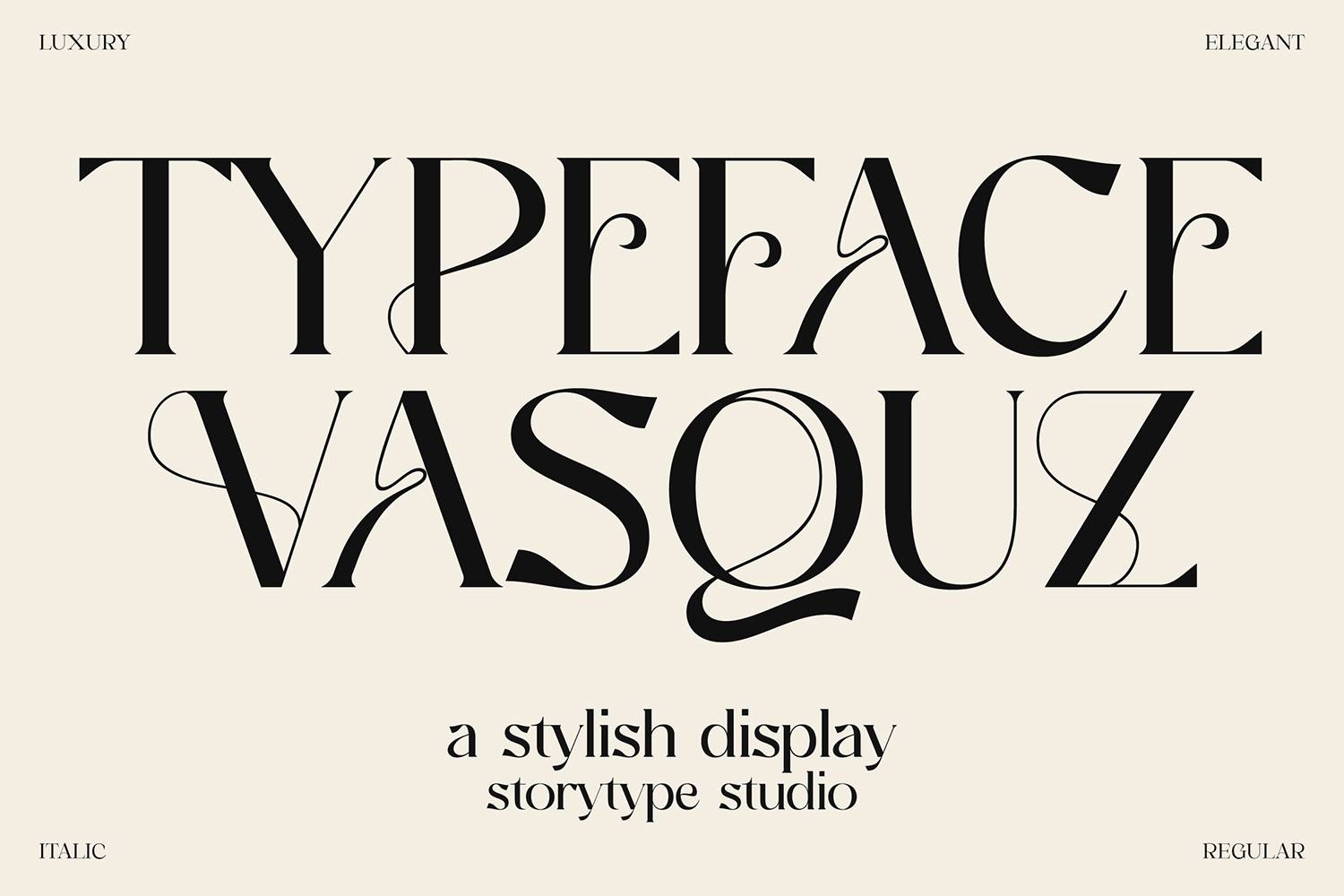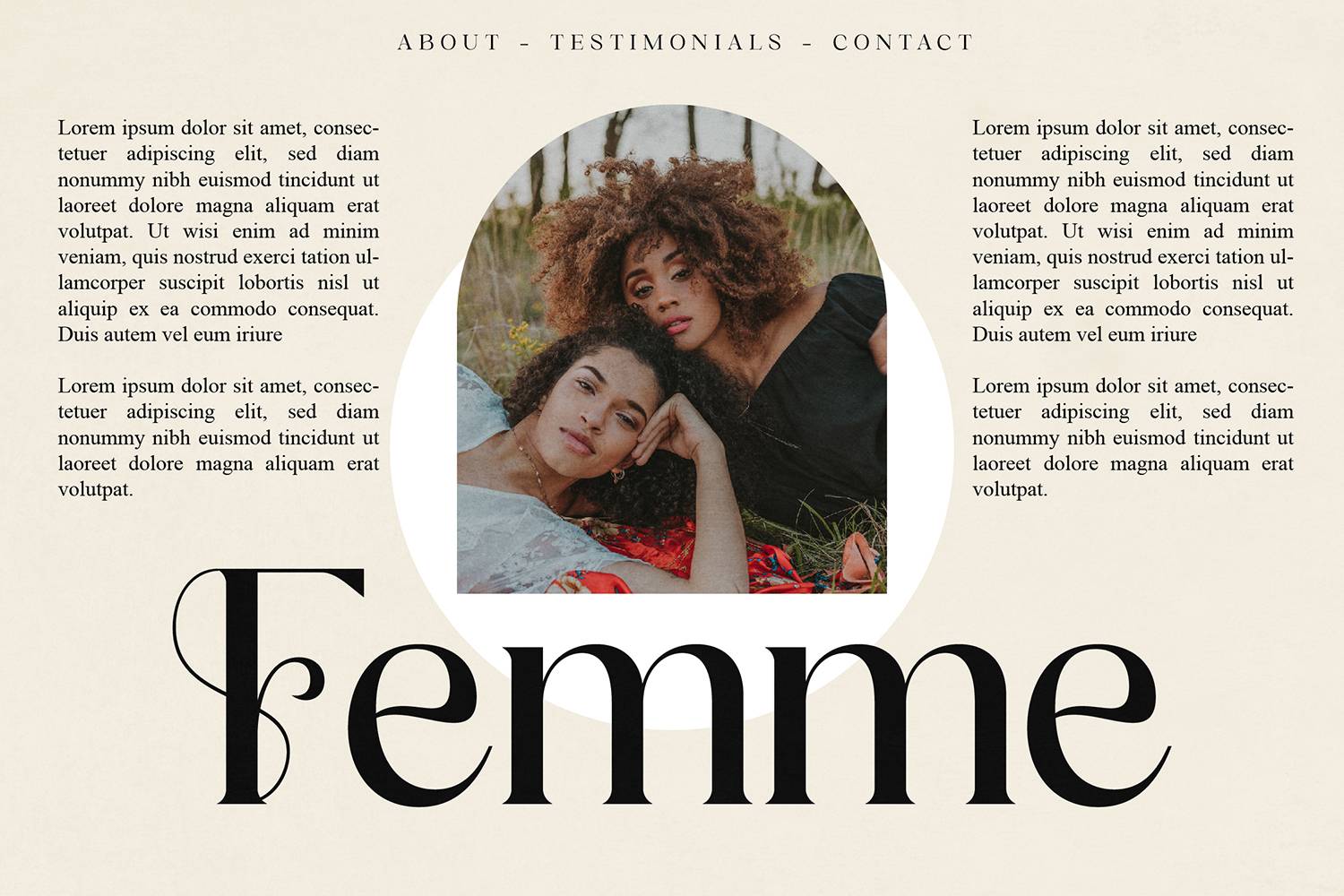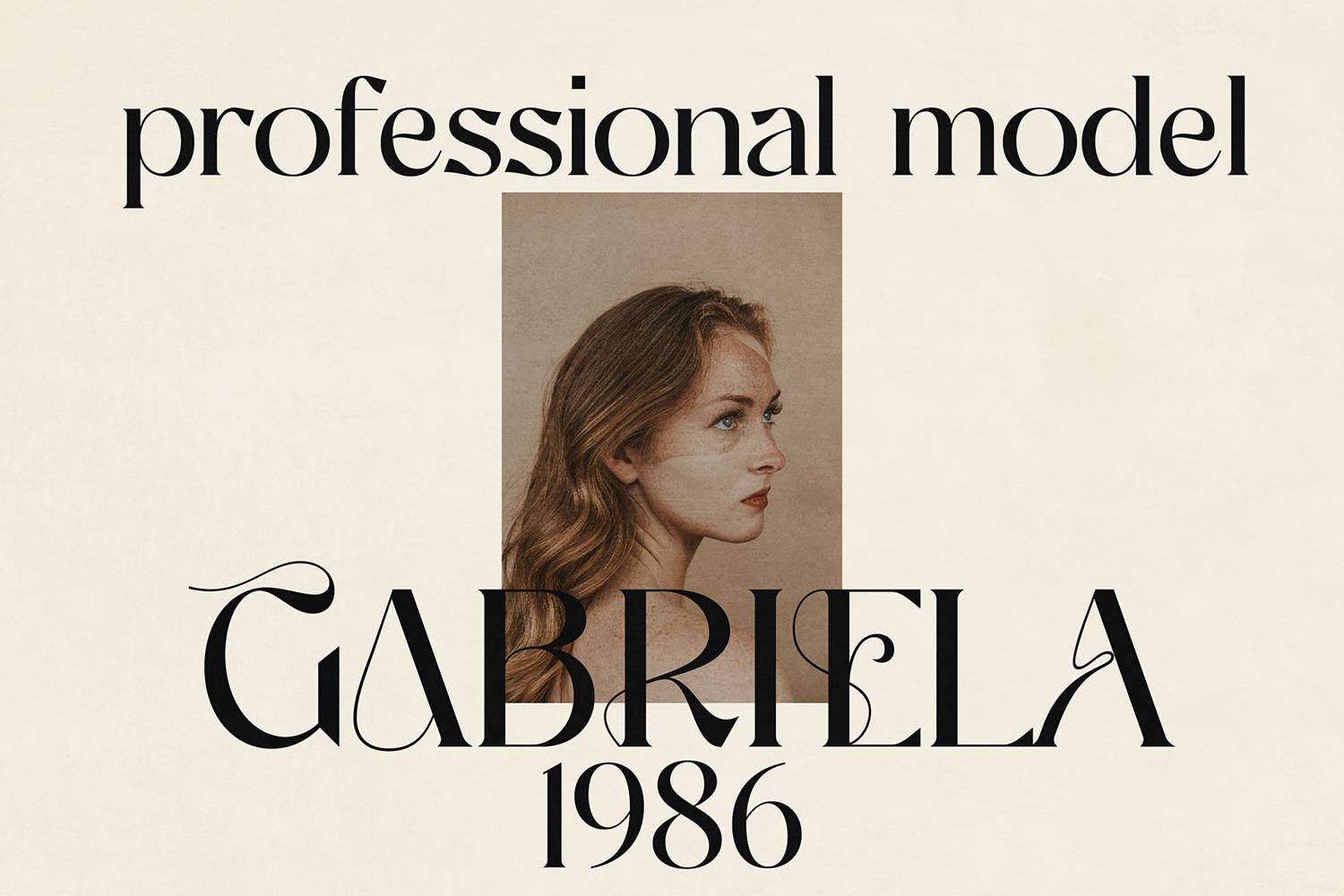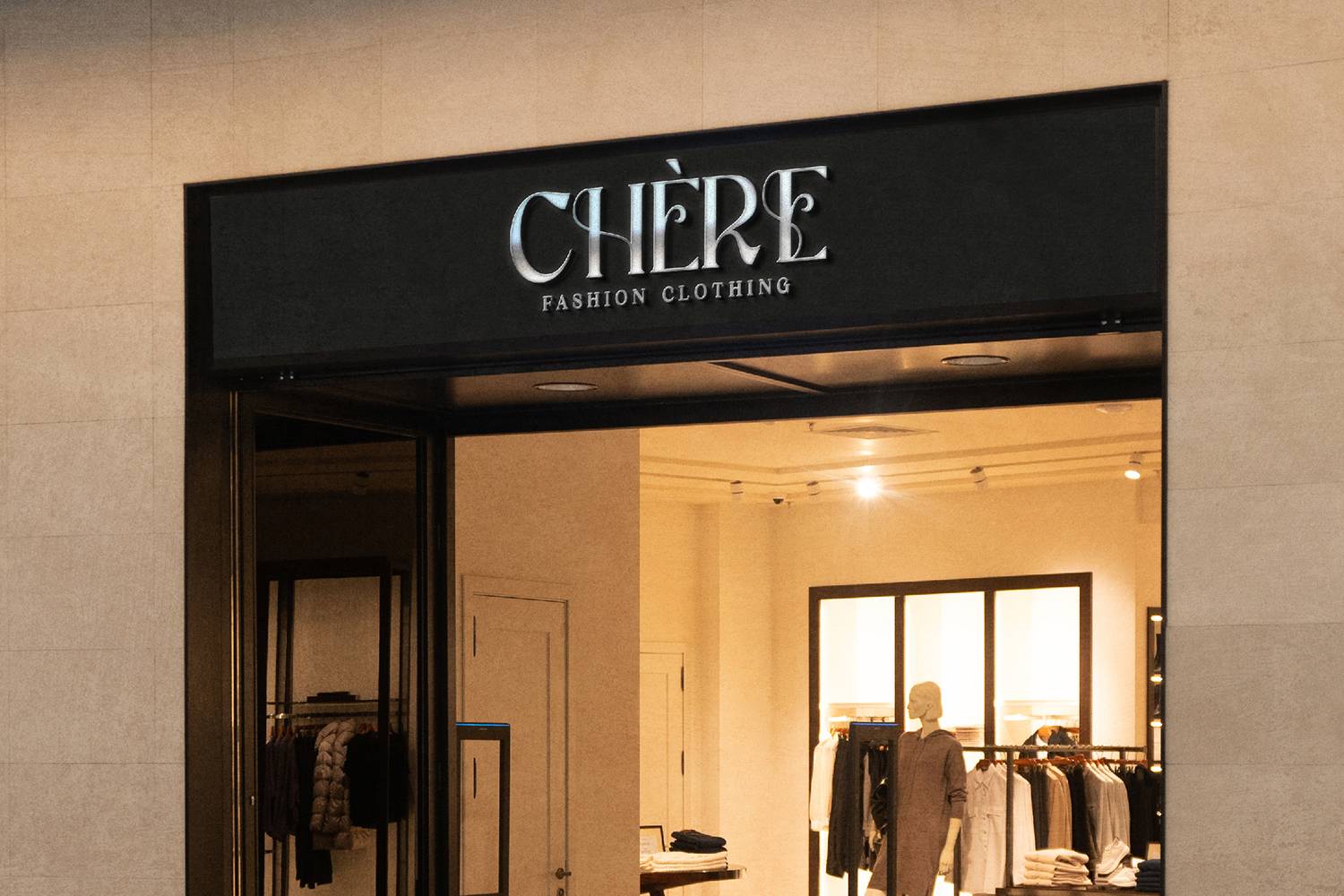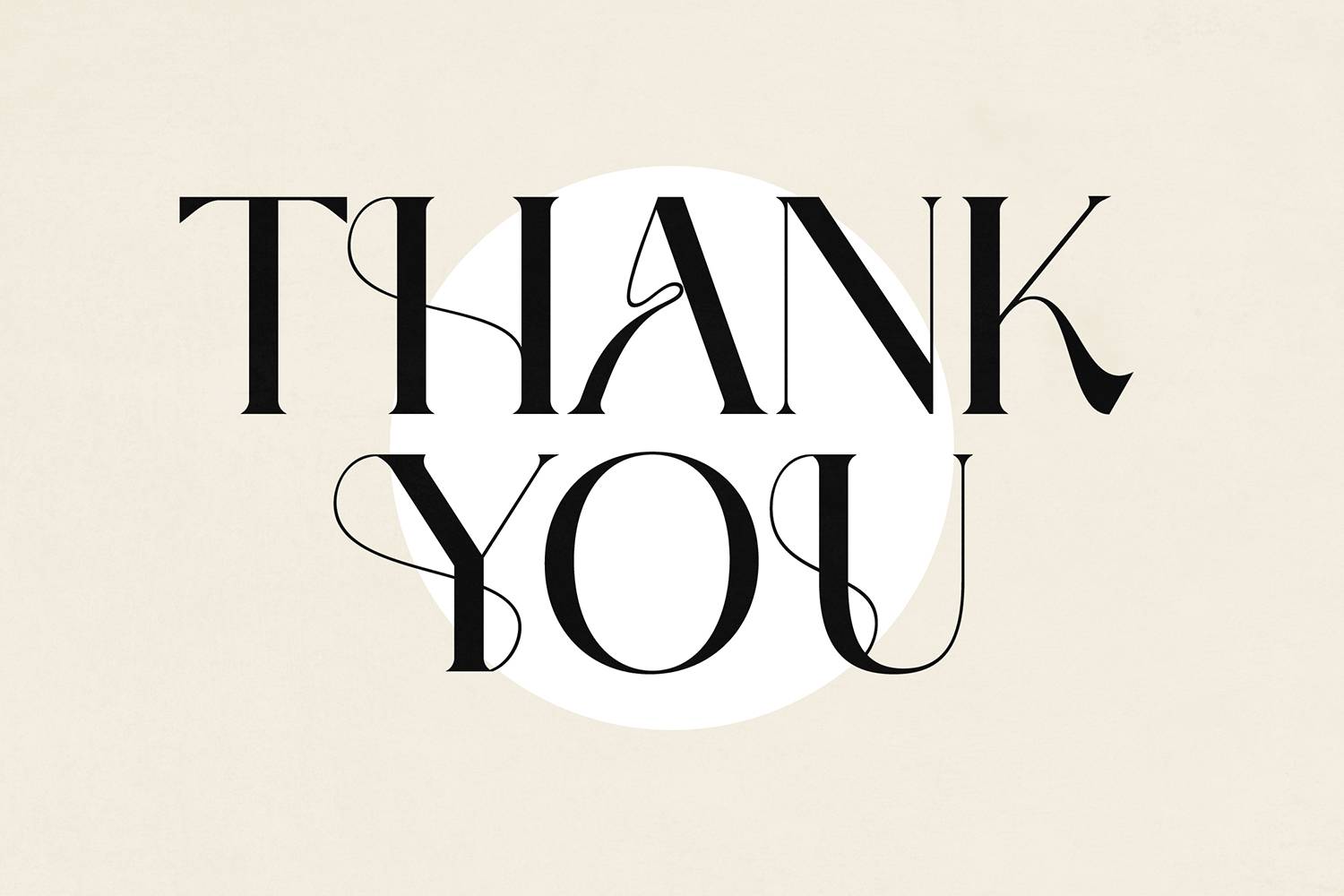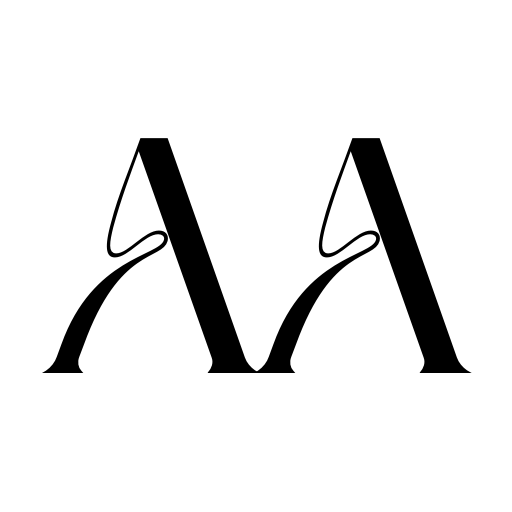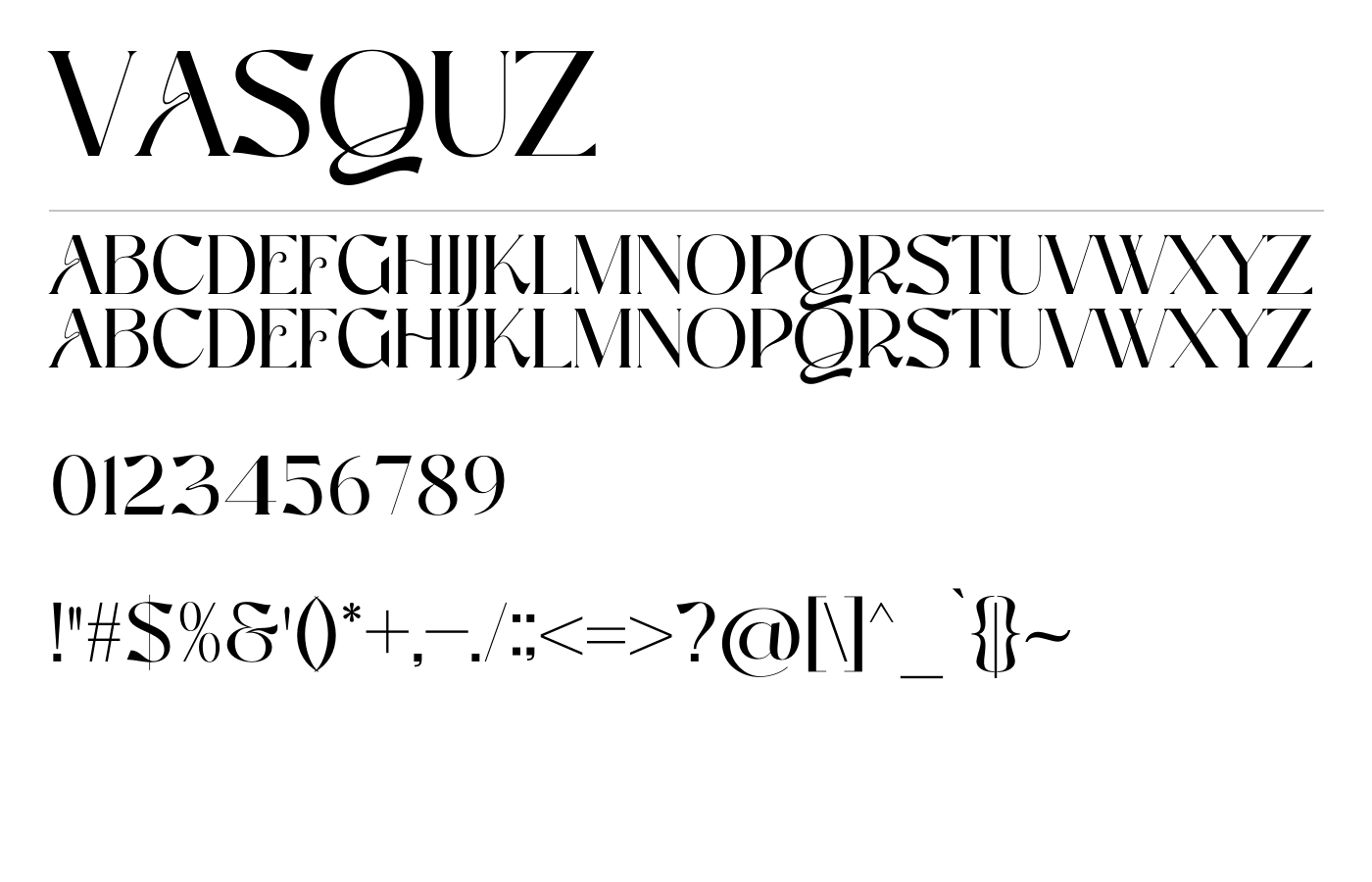
Vasquz is an elegant serif font with a modern flair, featuring high contrast strokes and refined bracketed serifs that give it a sophisticated and stylish look. Its tall, narrow letterforms with unique decorative elements like the distinctive Q tail and ampersand make it ideal for luxury branding, editorial headlines, and high-end packaging where a touch of elegance and personality is desired. This font works best in display settings, adding a graceful and artistic feel to any design.
Vasquz Font
| Designer | Storytype Studio |